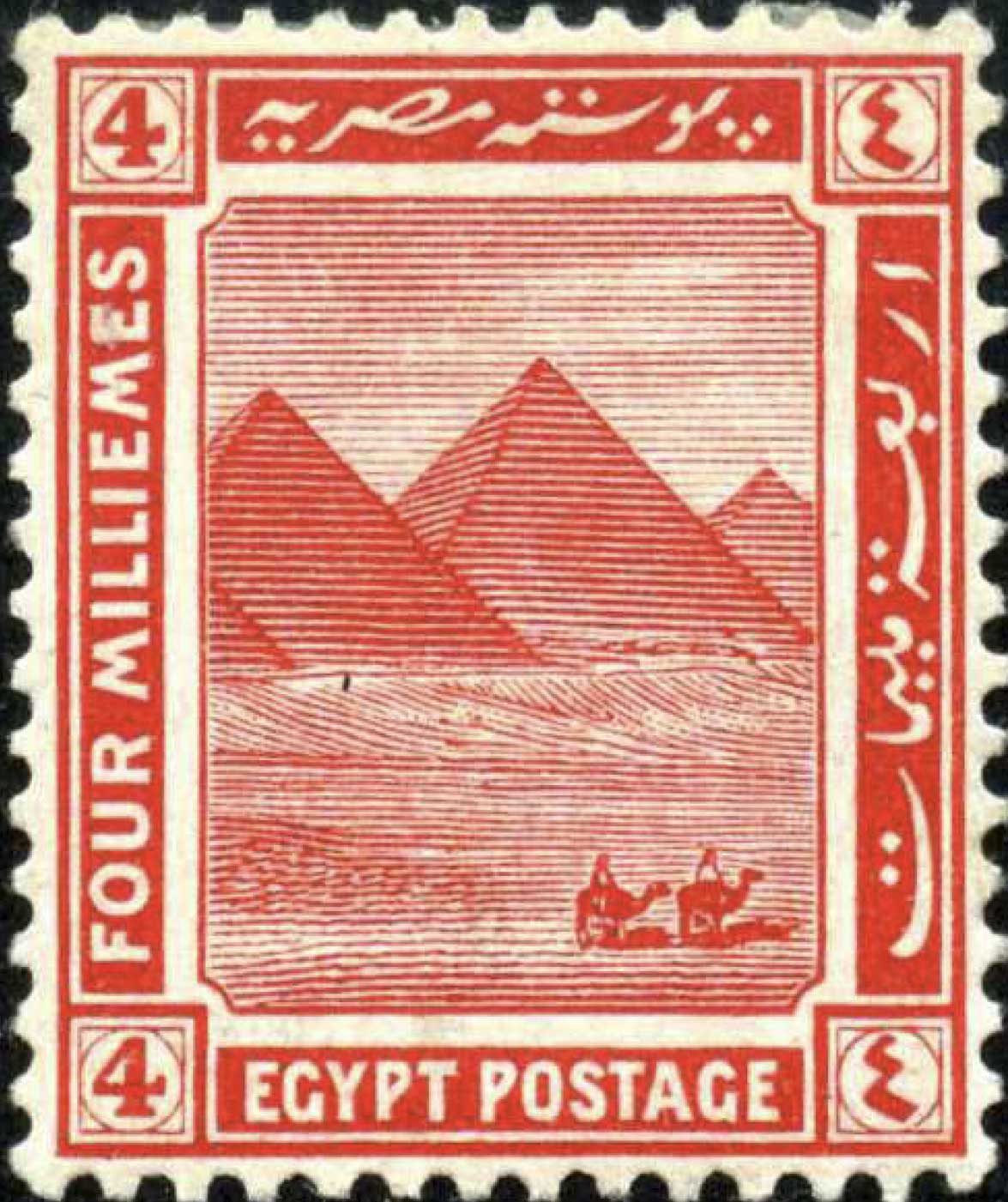
Font from an early 19th Century Egyptian postage stamp
Looking for something close to the 'EGYPT POSTAGE' part.
I'm sure you are right. Anything close would be good though. Particularly the 'P'
Anything close would be good though. Particularly the 'P'
There was a brief period of time in which such typeface existed
Nowadays, perhaps Bourton Base, using the alternate |P| would fit the bill.
Also, the Fort Foundry has several typefaces with such alternate |P| shape.